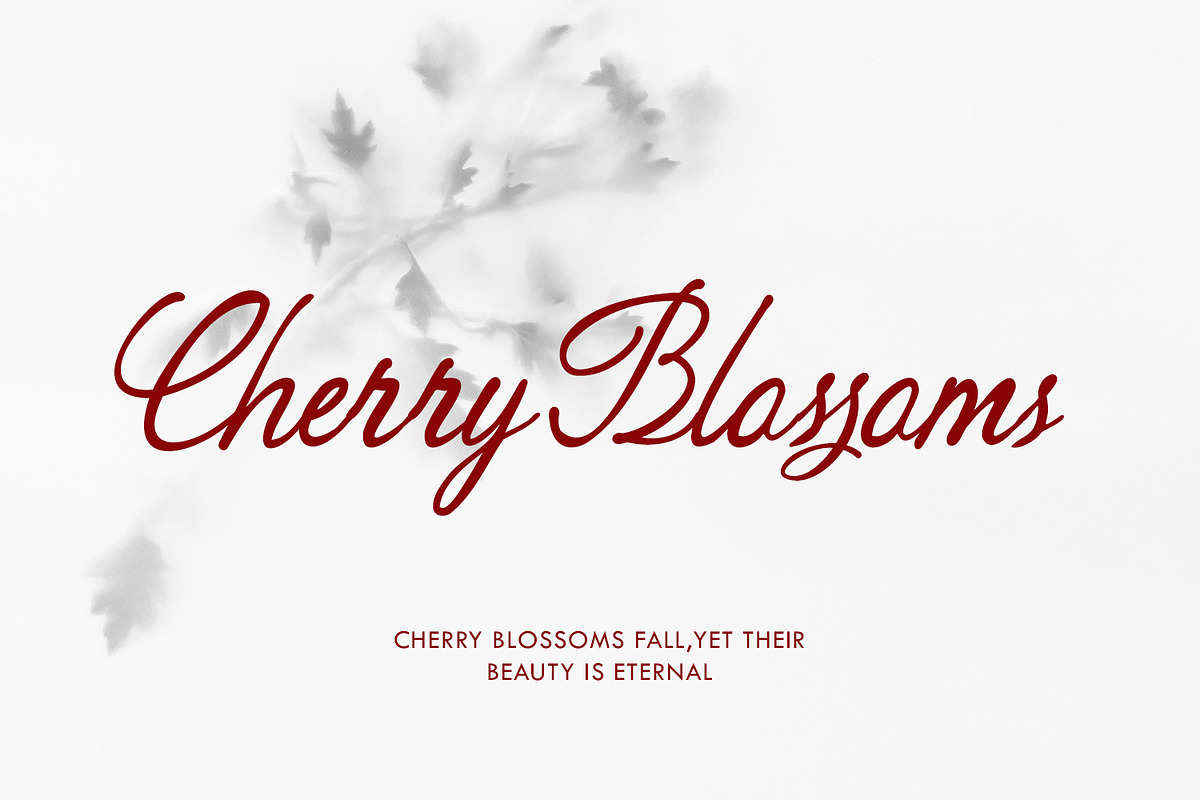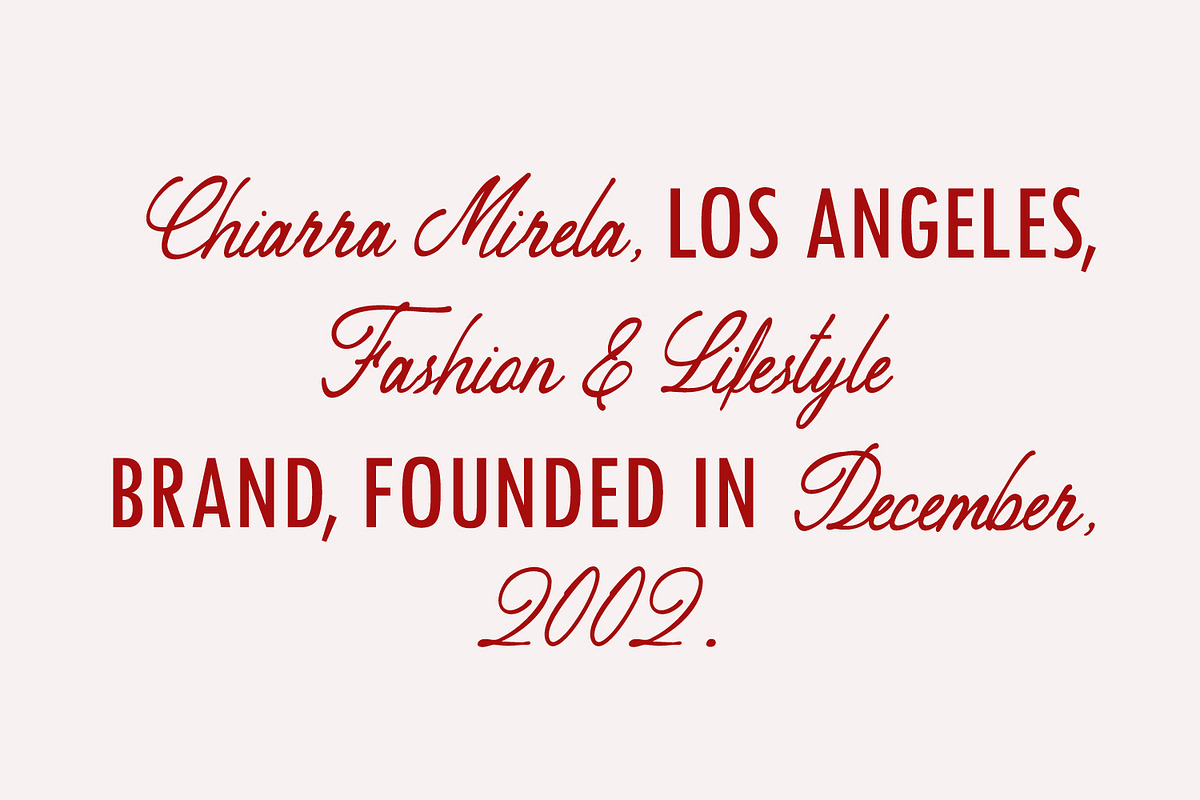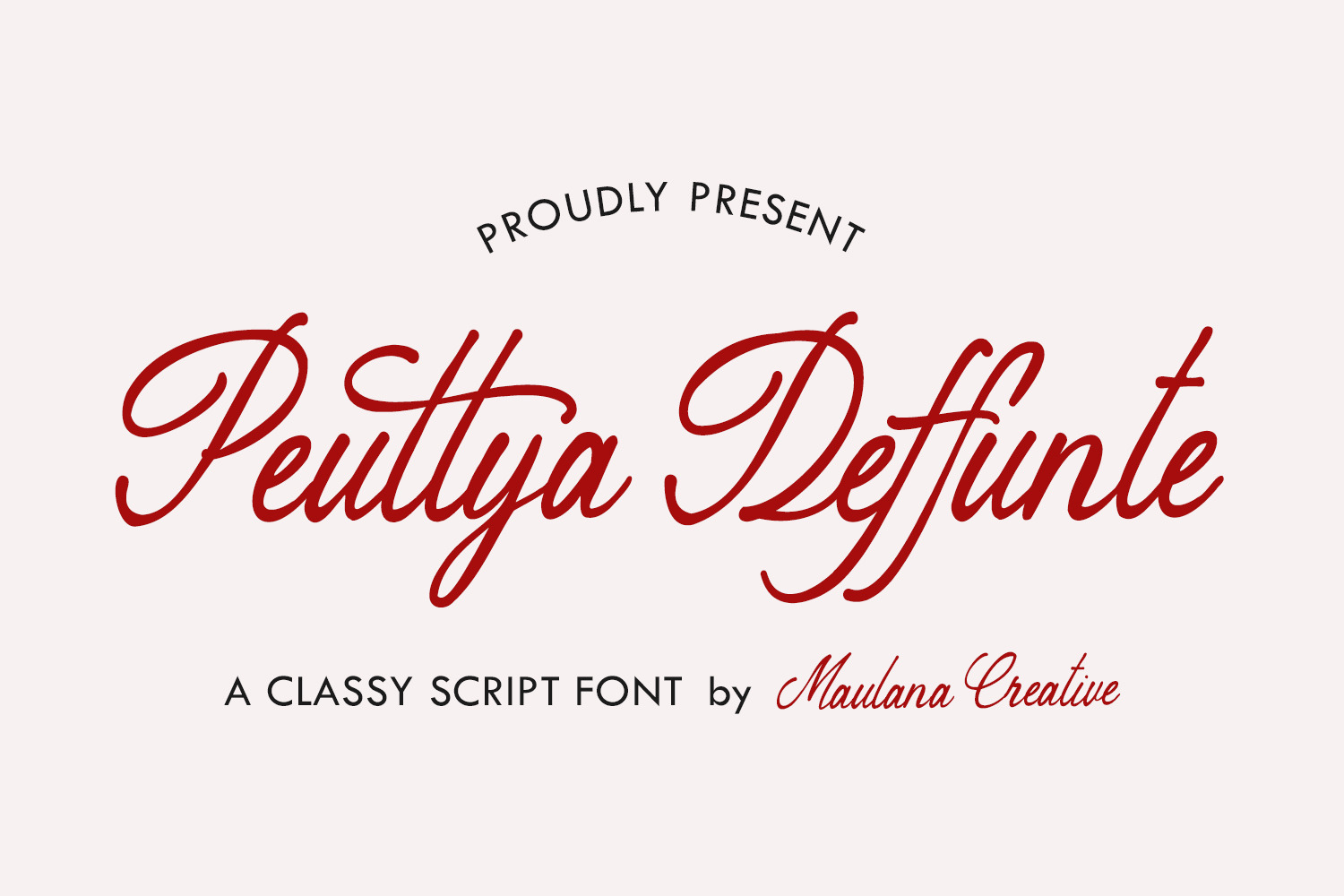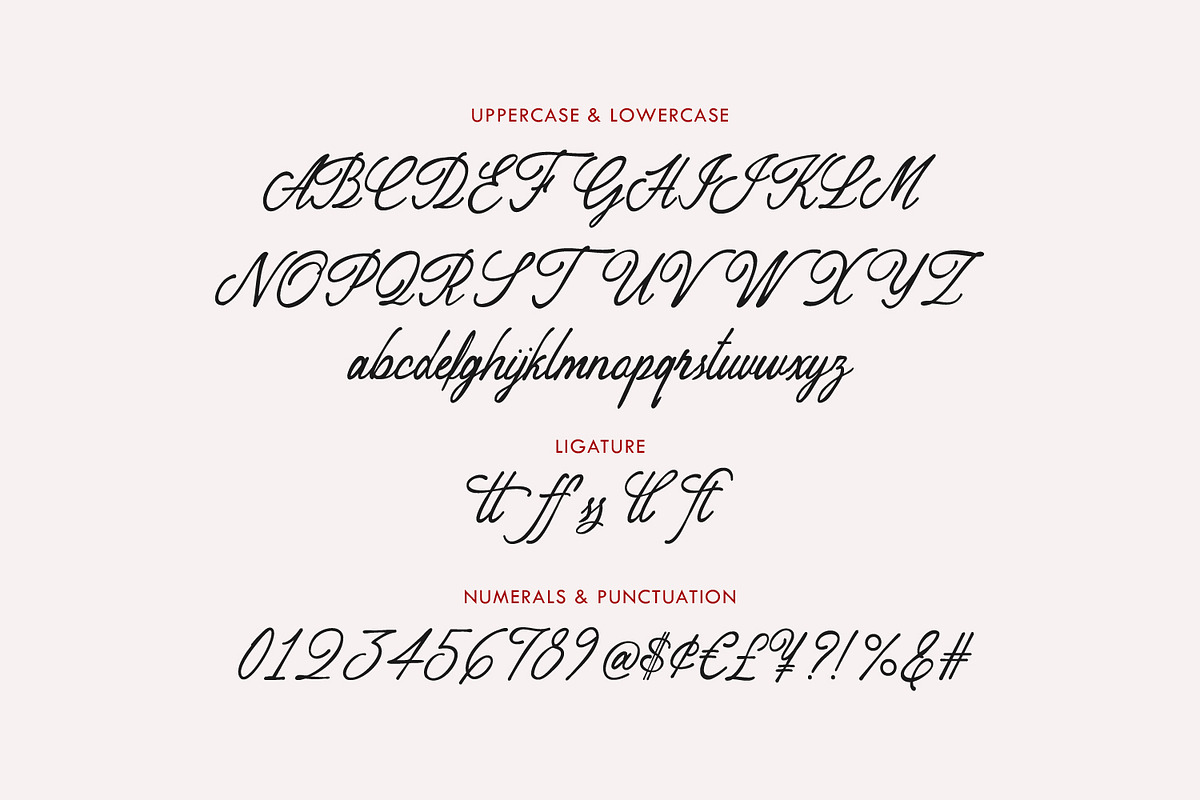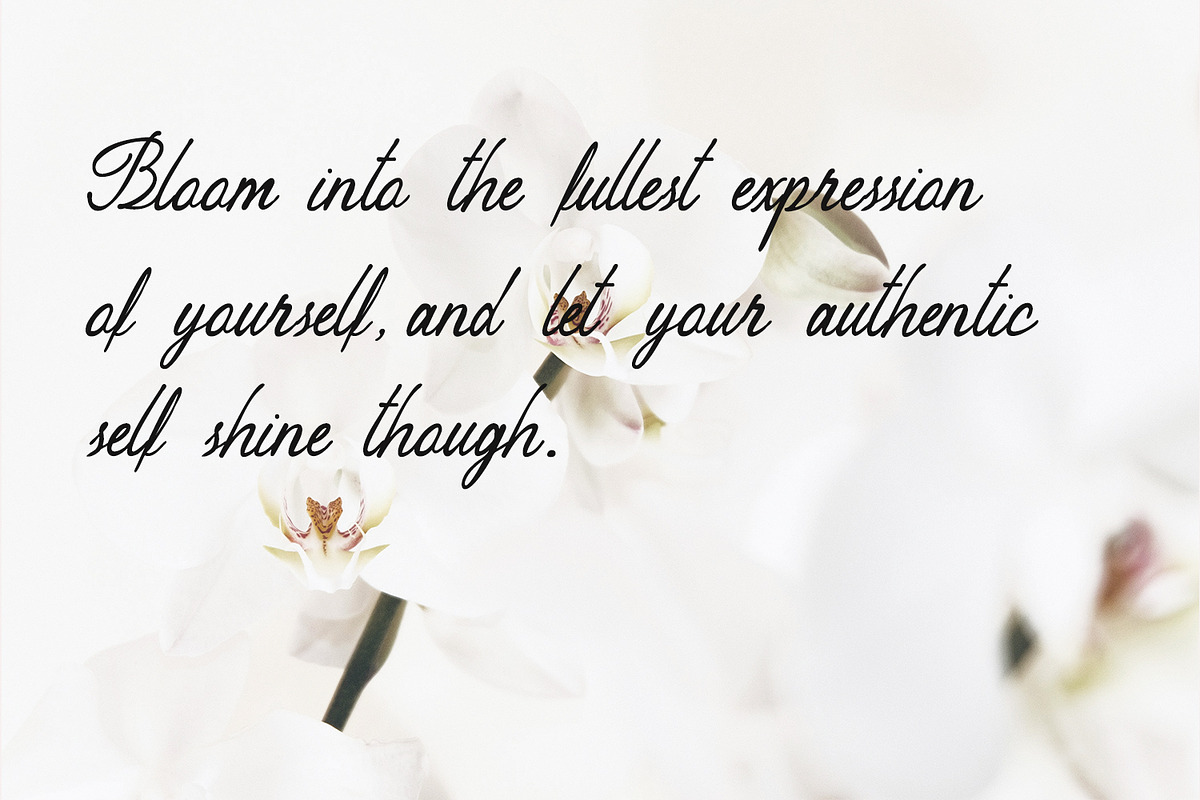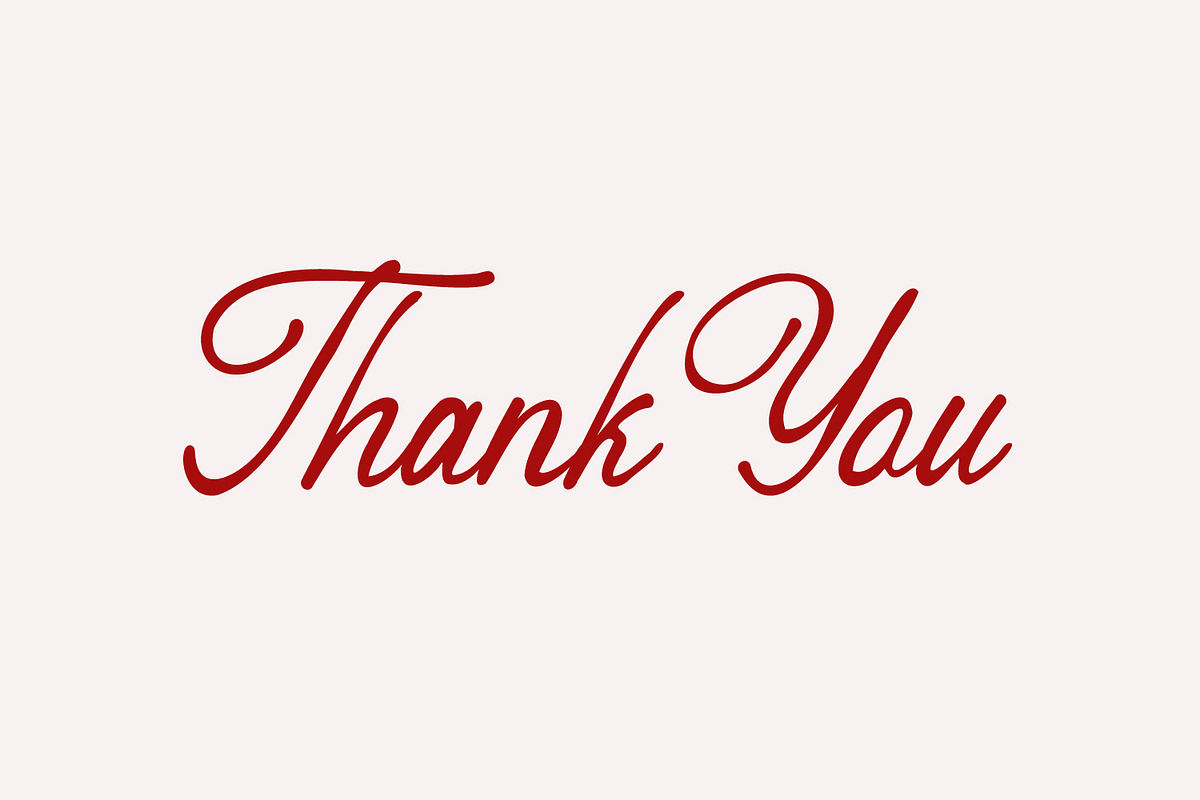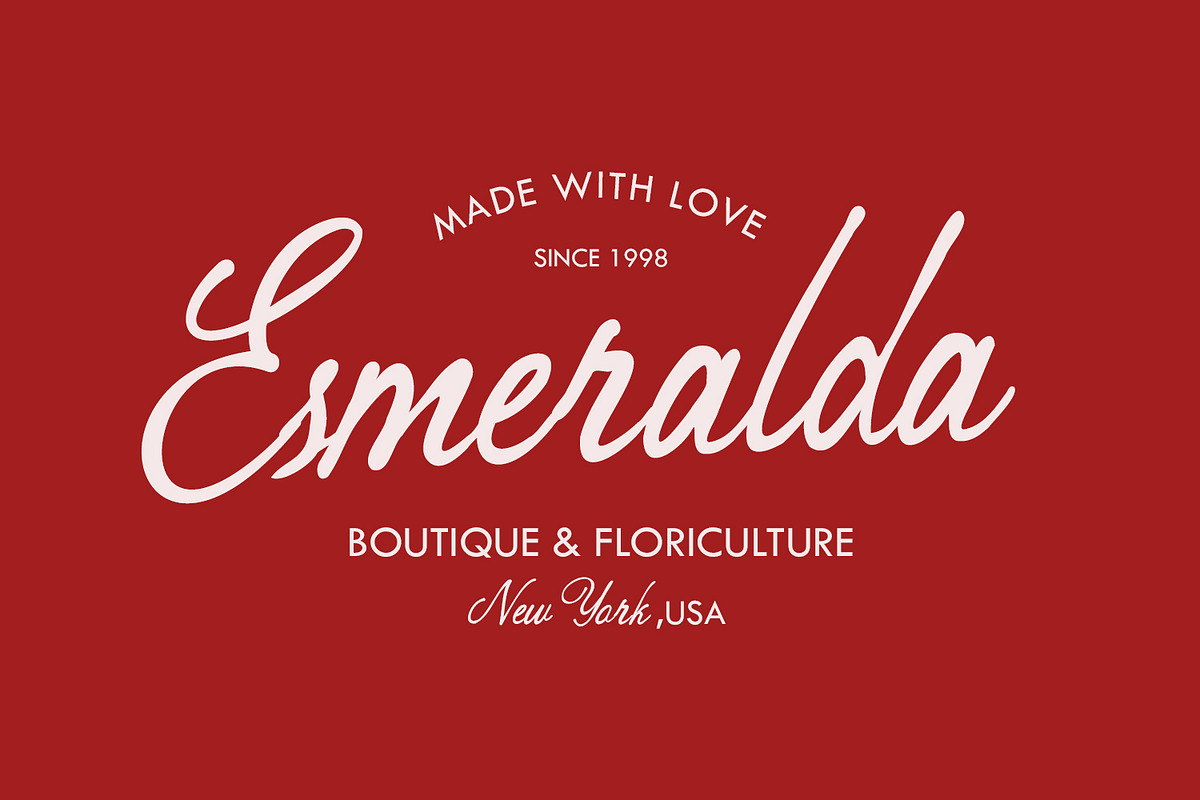
Peuttya Deffunte Sophisticated Font
Peuttya Deffunte is a premium script typeface designed to bring an air of effortless elegance and timeless class to your creative projects. Crafted by Maulana Creative, this font features flowing, organic strokes and a balanced slant that mimics high-end calligraphy. With its comprehensive set of uppercase and lowercase characters, stylish ligatures, and clean numerals, it is the perfect choice for luxury branding, wedding invitations, fashion editorials, and signature logos. Whether you're designing for a boutique in New York or a lifestyle brand in Los Angeles, Peuttya Deffunte adds a touch of authentic, handwritten charm.
- Full character set (Uppercase & Lowercase)
- Numbers, Punctuation, and Symbols
- Ligatures for a natural handwriting flow
- Branding & Logo Design
- Wedding Stationery & Invites
- Fashion & Lifestyle Photography Overlays
- Social Media Templates